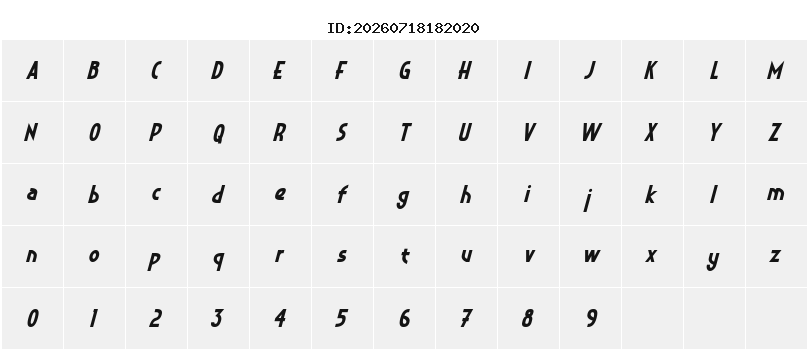
• Font Name: Crystal Deco
• Designer: Neale Davidson
About Crystal Deco.ttf
Crystal Deco.ttf is a modern, elegant sans-serif font designed for ultimate readability and visual harmony. Perfect for branding, headlines, web design, and print materials.